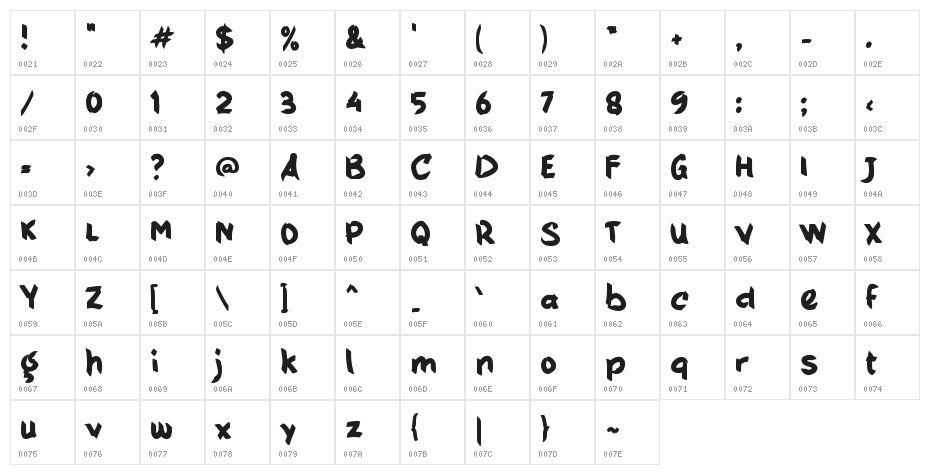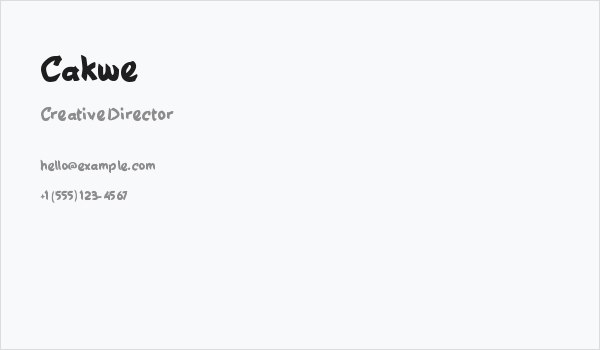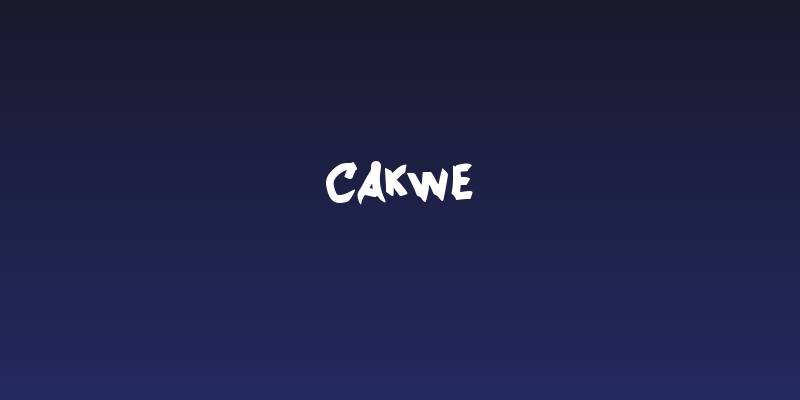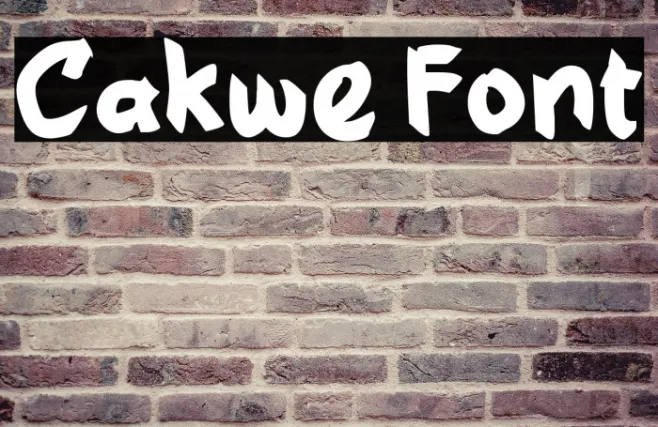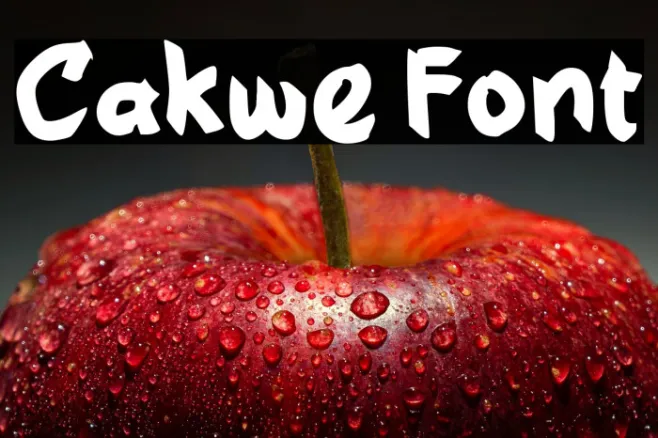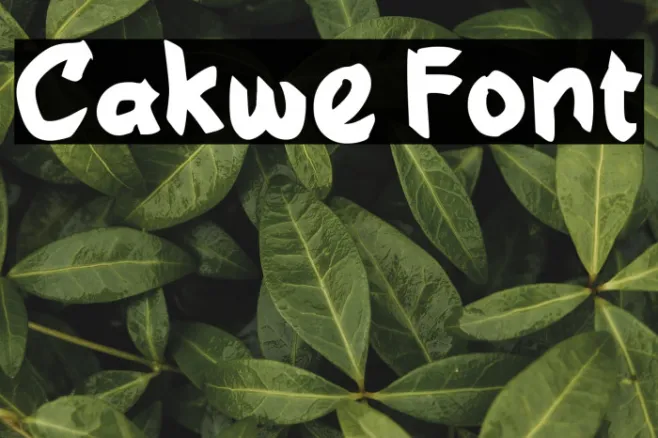
Cakwe Font
Cakwe Description
This font features a bold and dynamic style with a playful, hand-drawn appearance. The letters are thick and slightly irregular, giving them a lively and energetic feel. The strokes are bold with a consistent width, creating a strong visual impact. The characters have a slight slant, adding to the informal and casual aesthetic. The font includes both uppercase and lowercase letters, numerals, and a variety of special characters, making it versatile for different design needs. Its unique style makes it stand out, perfect for projects that require a touch of creativity and fun.
| Overall Style | Playful, Energetic |
| Use Case | Headlines, Posters, Creative Branding |
| Proposed Projects | Ideal for posters, children's books, playful branding, and creative social media graphics. |